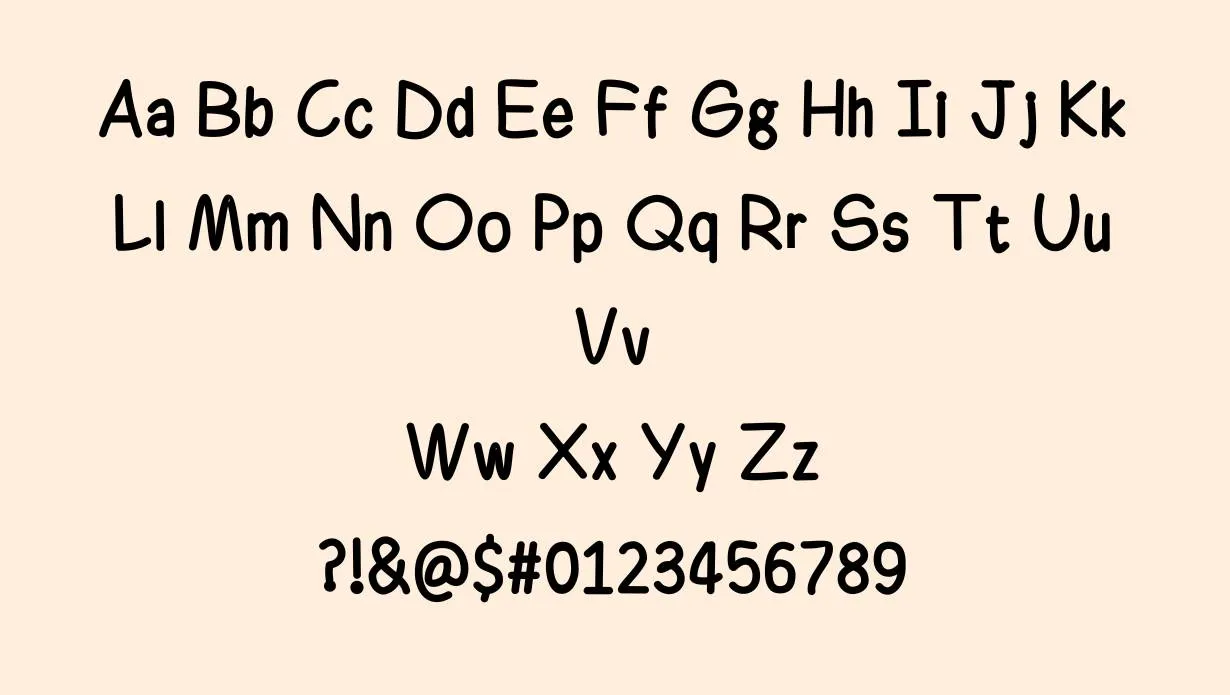
Ferrero Font is a very famous fancy font and it was used by many big organizations for product packing and advertisement for their brand. It was designed by Thomas Arddea and manufactured by Letterara in 2019. It has many characters and glyphs which makes it perfect for many projects. It has small letters, capital letters, punctuation, symbols, and special characters.
You can also use it for pairing it with other fonts like starlive font to give a more attractive look to your projects.